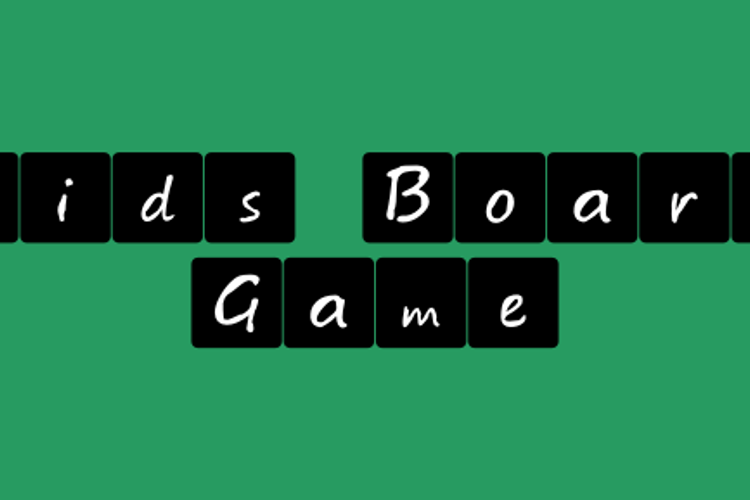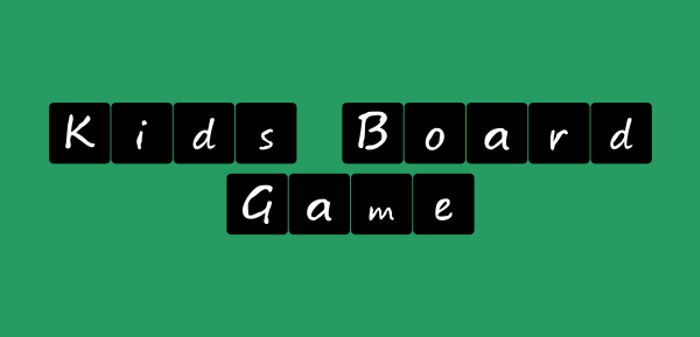
Kids board game Font
Inspired by the cover of a kids board game. This font is designed to be used in logos, product designs and website headers. Use can use it personally and commercially for free.